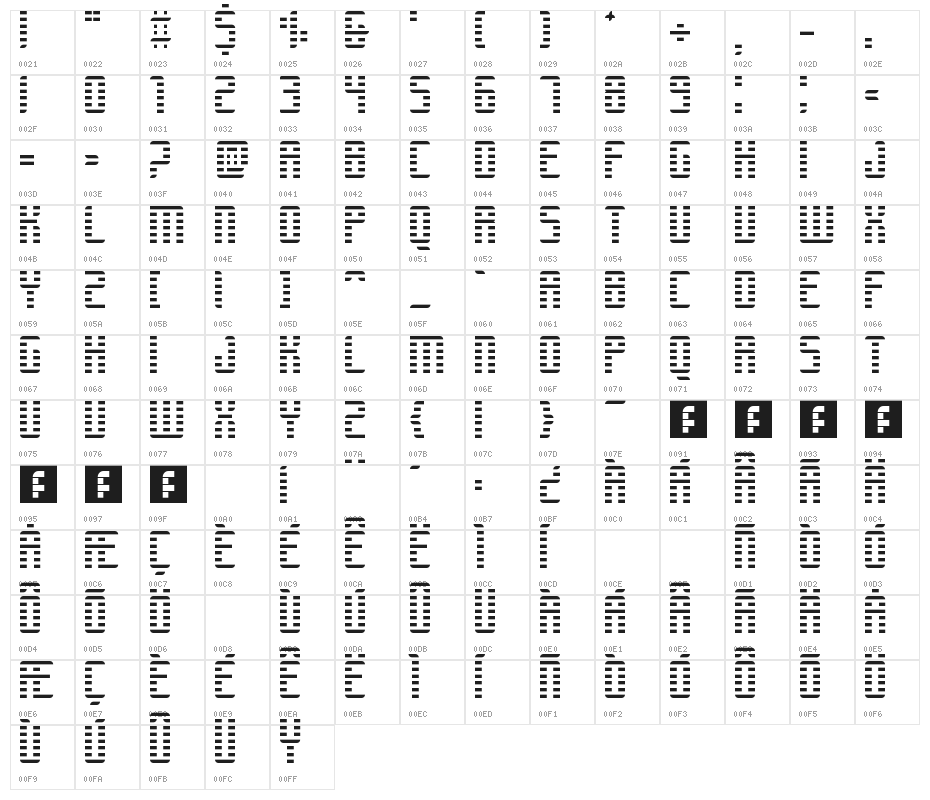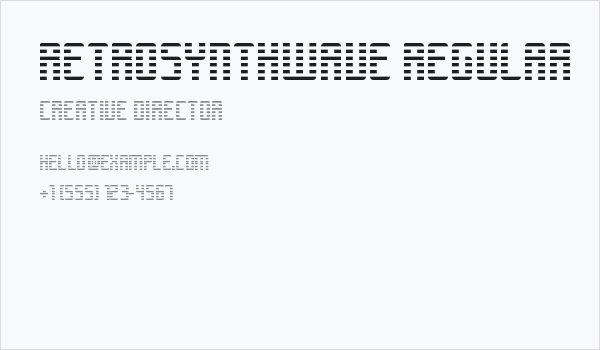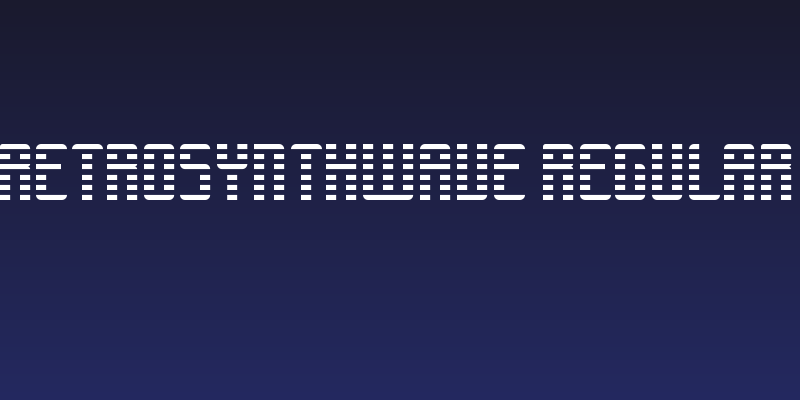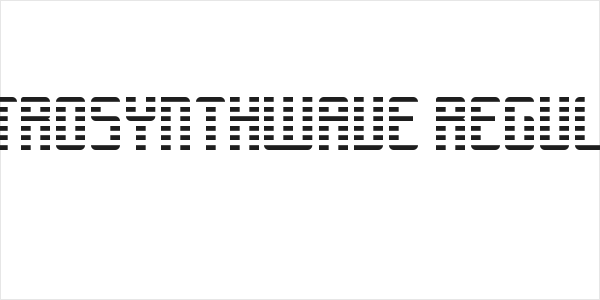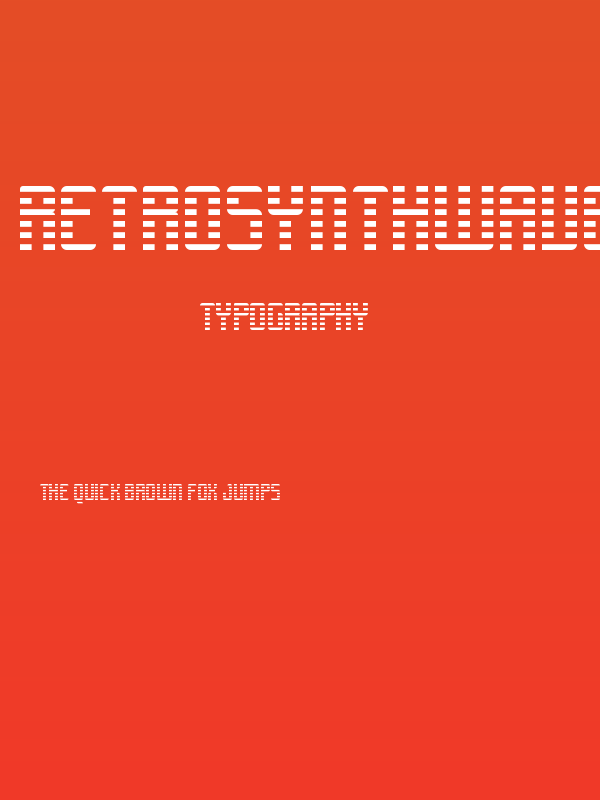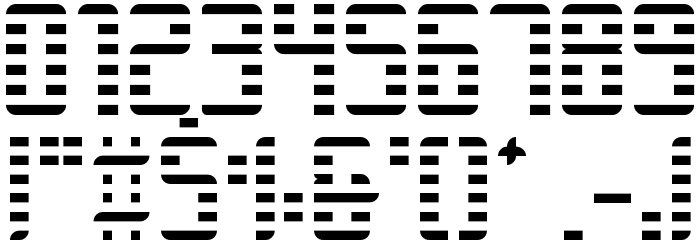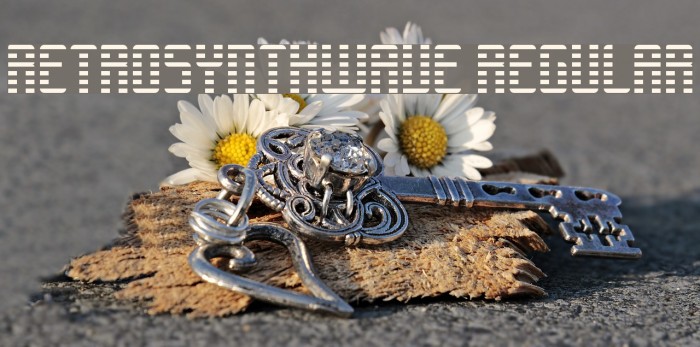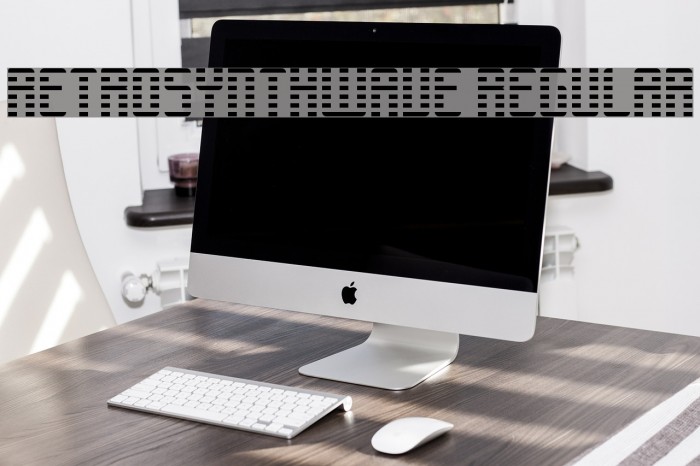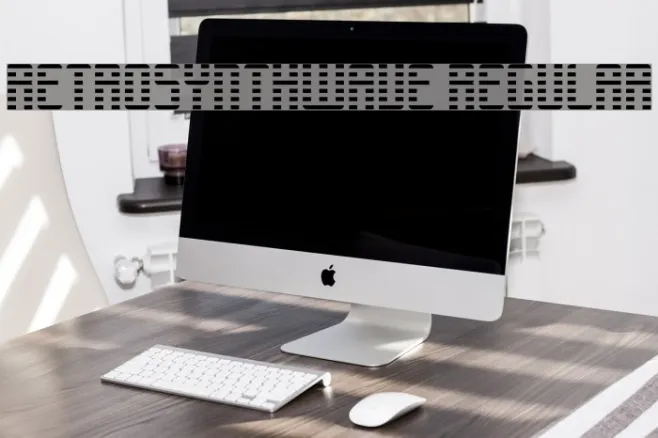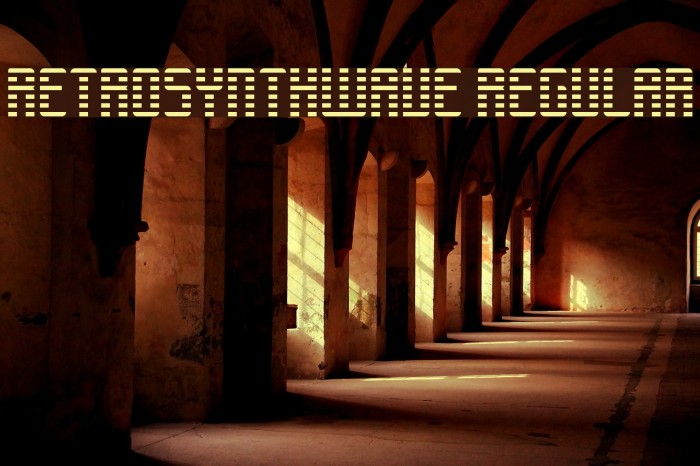
RETROSYNTHWAVE Regular Font
RETROSYNTHWAVE Regular Description
This font features a distinct, futuristic style characterized by its segmented, block-like appearance. Each character is composed of horizontal lines that create a digital, retro-futuristic aesthetic reminiscent of 1980s synthwave and cyberpunk themes. The uppercase and lowercase letters maintain a consistent structure, providing a cohesive look across the alphabet. Numbers and special characters follow the same segmented design, ensuring uniformity throughout. The font's unique style makes it ideal for projects that aim to evoke a sense of nostalgia for early digital technology and retro-futuristic design.
| Overall Style | Retro-Futuristic |
| Proposed Projects | Ideal for retro-themed posters, album covers, video game graphics, and digital art projects. |